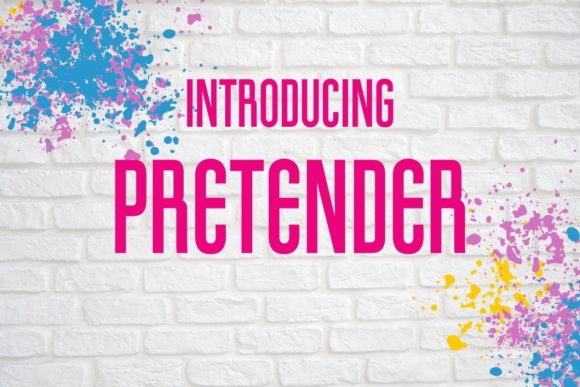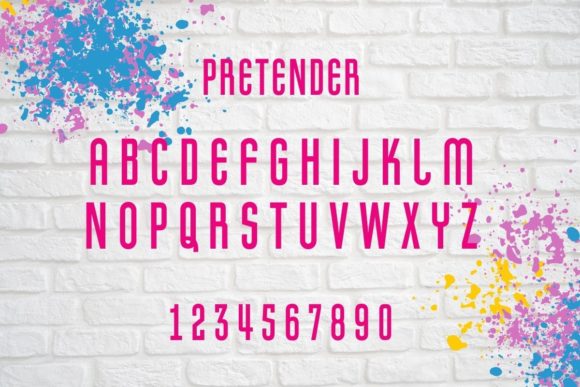
Pretender
About Pretender Font
Pretender is a narrow, art deco sans serif font that has beautiful curved lines that were inspired by the sheet music cover from an early 20th-century waltz ballad.